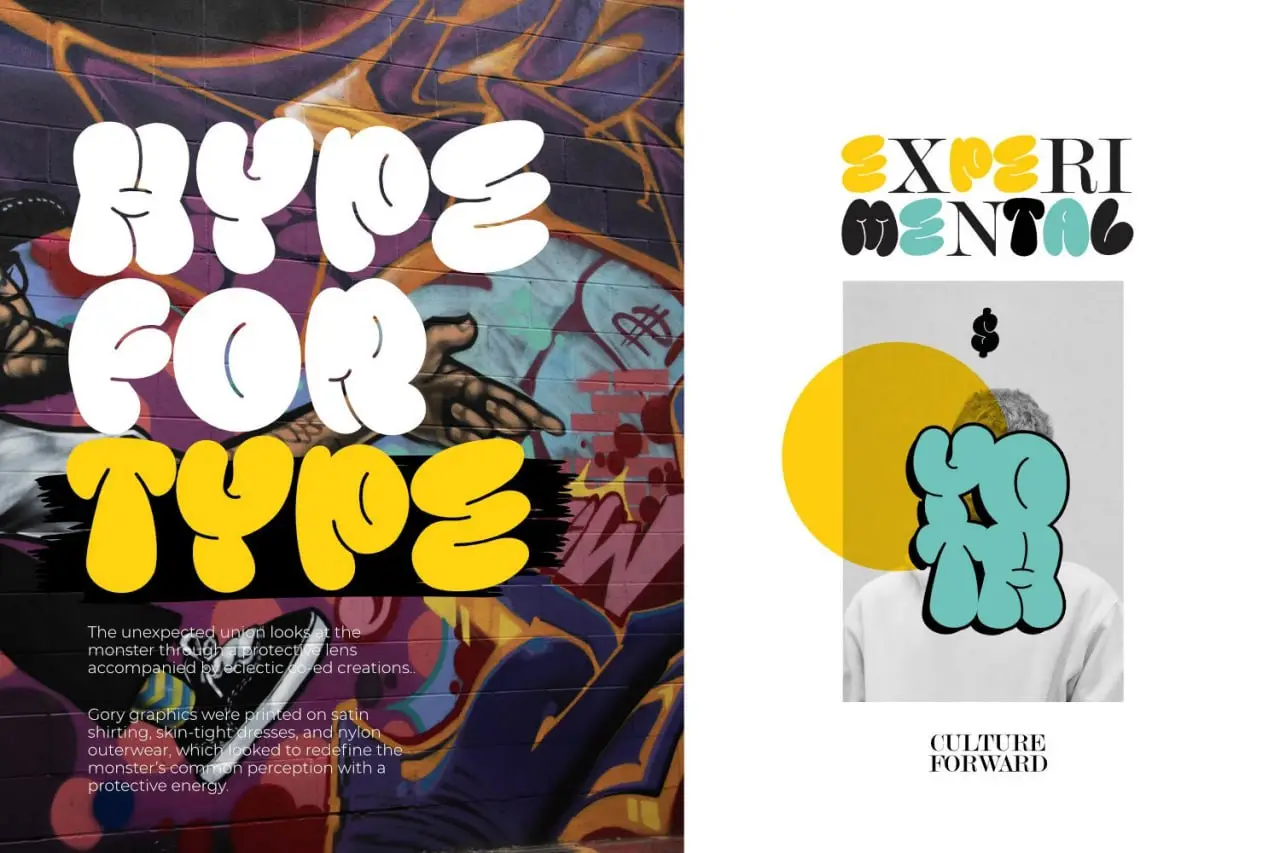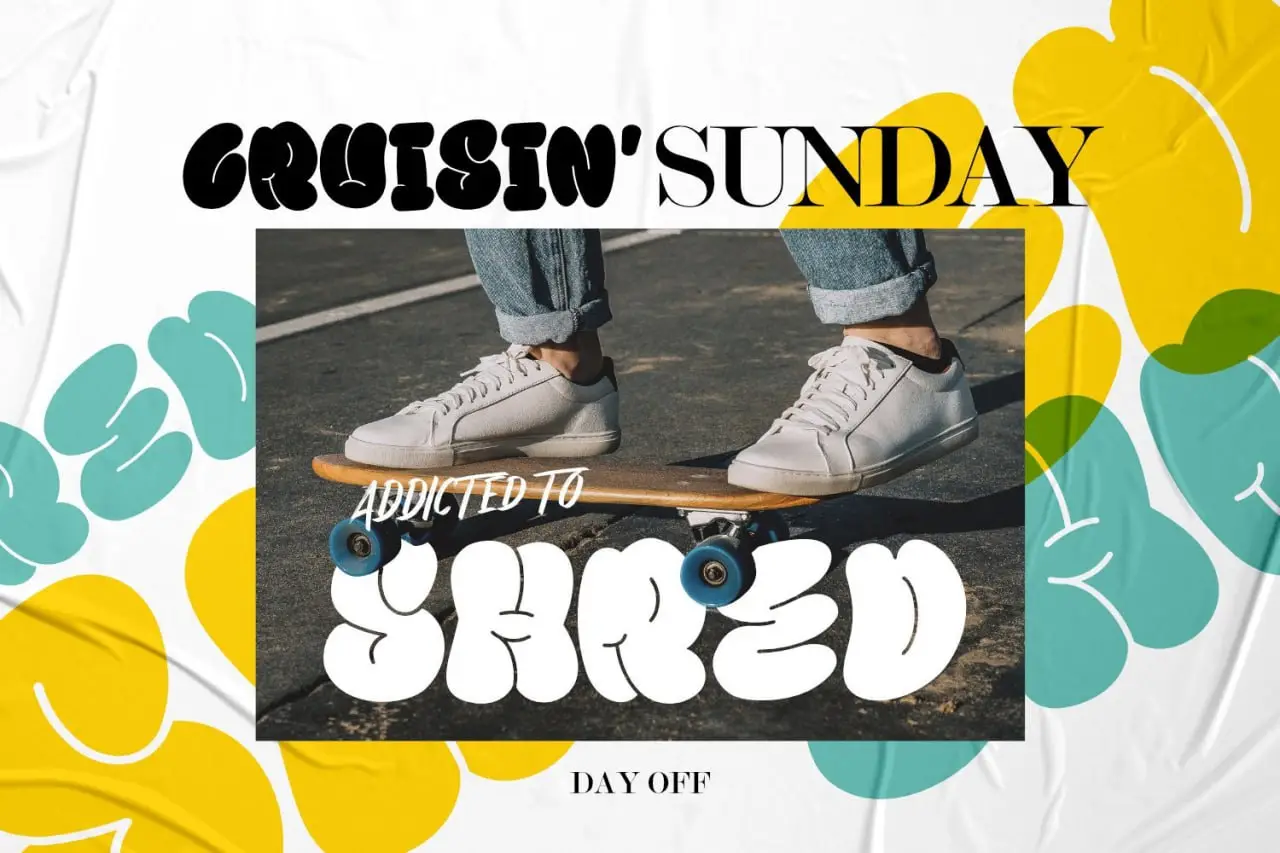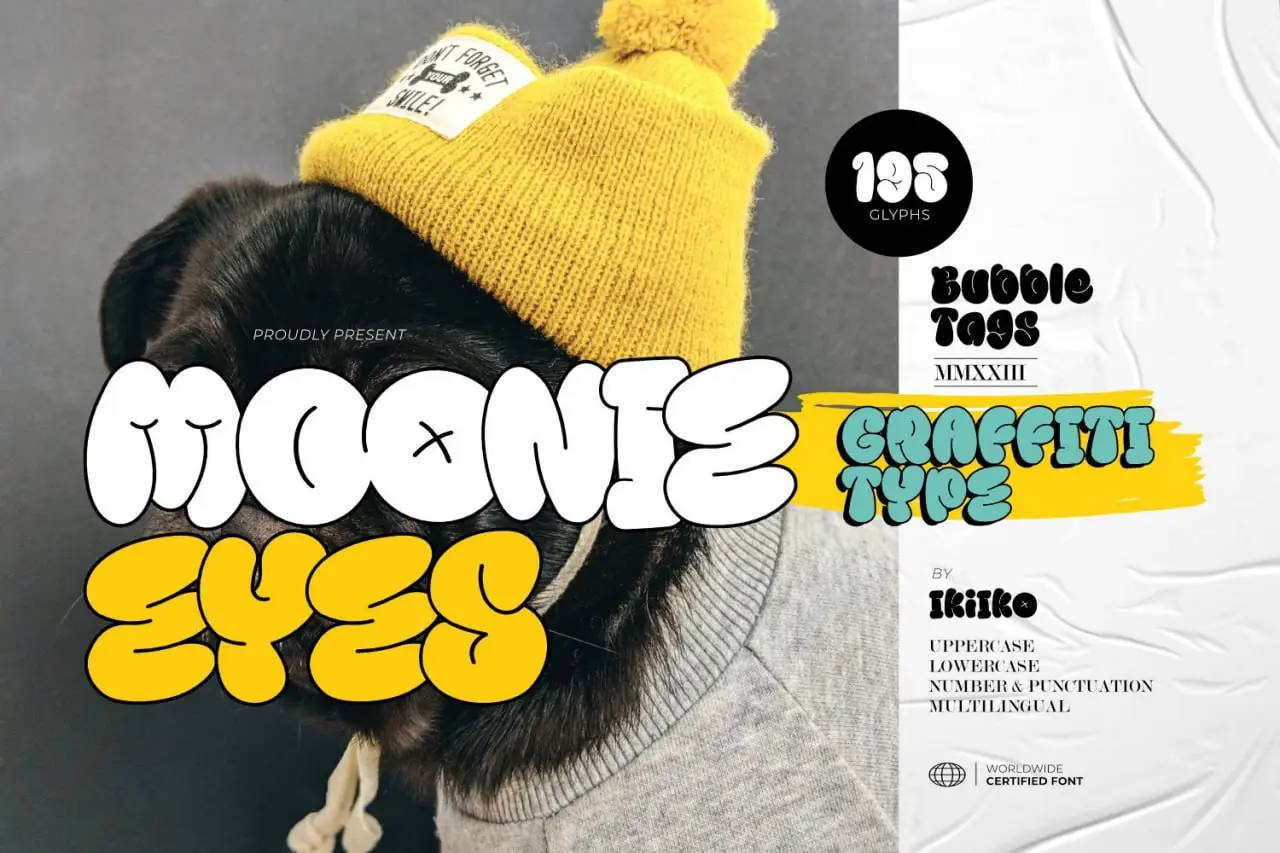
Moonie Eyes Font By Ikiiko
The Moonie Eyes Font by Ikiiko is a unique typeface that captures a whimsical and playful spirit. Perfect for a variety of design projects, this font offers a blend of elegance and charm, making it suitable for both personal and commercial use.
• Stylish and modern design
• Styles: Display, Handwritten
• Ideal for branding, logos, and invitations
• Use in UI design for a friendly touch